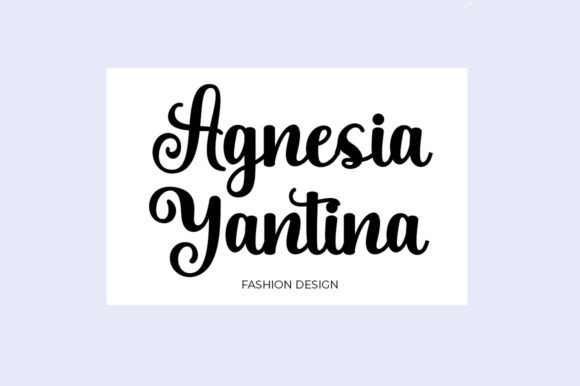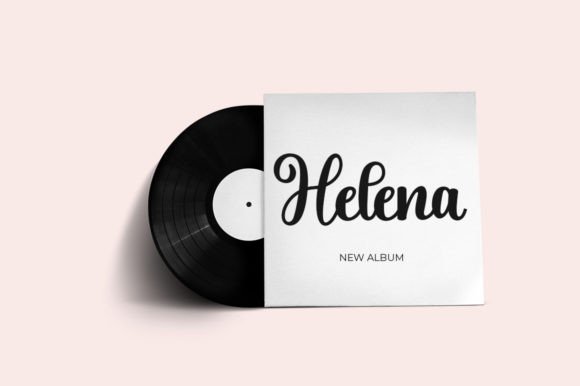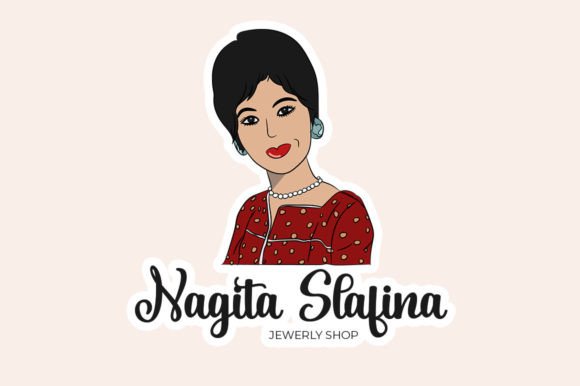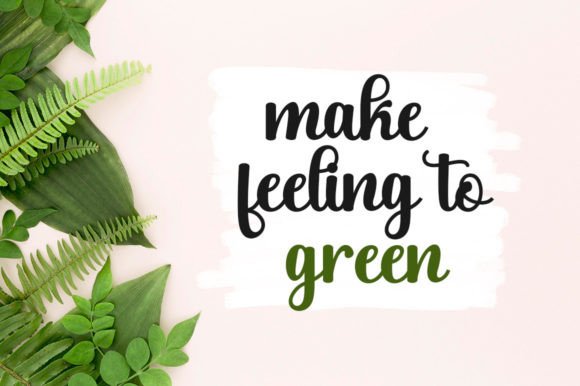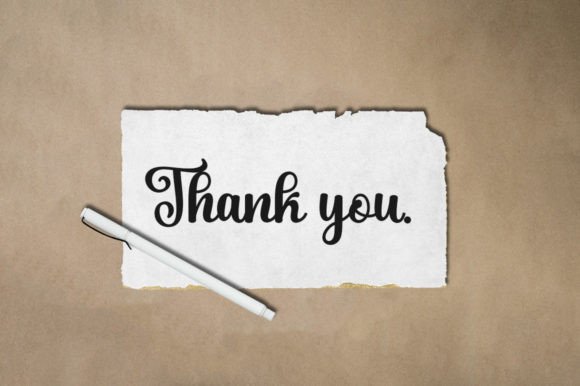
Tapak Beukah Font
About Tapak Beukah Font
Introducing “Tapak Beukah,” a modern calligraphy typeface that combines casual and beautiful elements. This font is crafted for versatility and can be used for a wide range of purposes, including logos, product packaging, wedding invitations, branding, headlines, signage, labels, signatures, book covers, posters, quotes, and more.
The modern calligraphy style of “Tapak Beukah” brings a contemporary and elegant feel to your text. Its adaptability makes it suitable for various design contexts, making it a versatile choice for different creative projects.
Imagine “Tapak Beukah” enhancing the sophistication of your product packaging, where its calligraphic strokes create a stylish and upscale look. Picture it on wedding invitations, adding a touch of romance and beauty to your special event. Envision it becoming the signature font for your branding, giving your logo and promotional materials a distinctive and refined aesthetic.
“Tapak Beukah” is not just a font; it’s a design element that brings modern calligraphy to your projects. Its versatility allows it to shine in different applications, making it a valuable addition to your font collection.